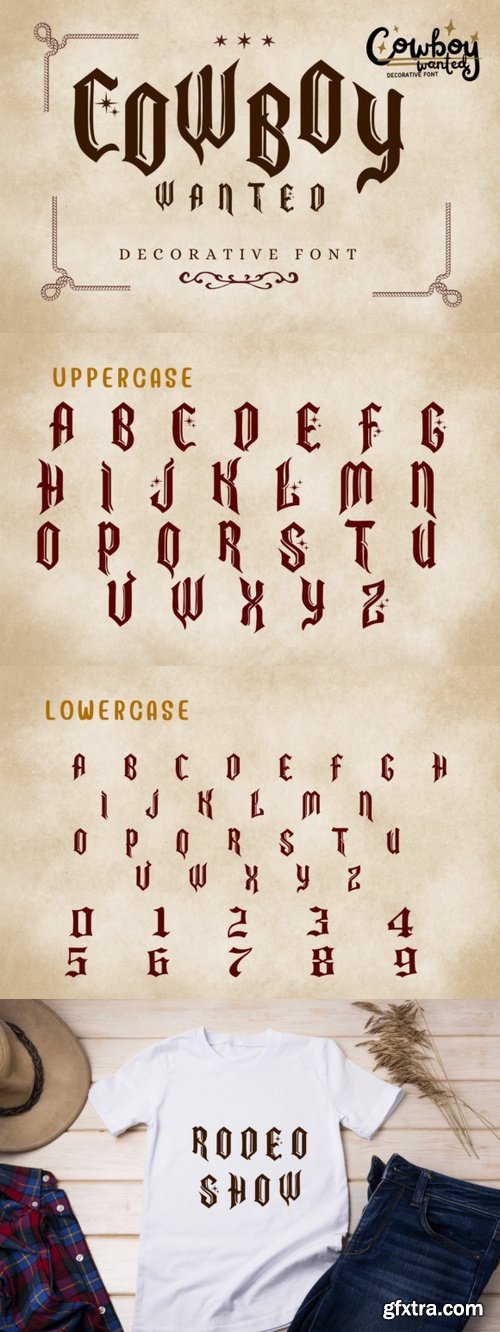
Cowboy Wanted Font
- Cowboy Wanted is a striking Western-style decorative font that brings the rugged charm of the wild west to your designs. With its vintage flair and ornate details, it’s a perfect match for retro branding, saloon posters, and Americana-style graphics.